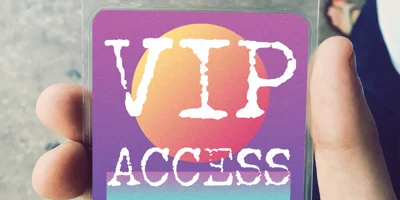
Schmutz Font
Unleash your grunge typography potential with Schmutz Font, a raw and expressive distressed typeface that brings authentic urban edge to your designs. With its handcrafted imperfections and streetwise character, this font captures the spirit of punk flyers, skate decks, and alternative culture.
Why Schmutz Font Rocks
1. Authentic Urban Texture
Genuine hand-inked imperfections
Multiple alternate glyphs for organic variation
Perfect "lived-in" distressed effects
2. Rebel Design Applications
Made for:
Music posters and album art
Skate/surf brand graphics
Craft beer labeling
Protest graphics and zines
Streetwear branding
3. Raw Creative Features
Upper/lowercase with gritty alternates
Custom ligatures for natural flow
Ink bleed and paper texture built-in
Includes punk-inspired dingbats
Professional Implementation
Schmutz Font kills it in:
Music festival branding
Alternative magazine layouts
Craft product packaging
Urban renewal campaigns
Indie game interfaces
Layer with textures for maximum grit
Designer Tip: Use OpenType alternates (Contextual Alternates ON) for authentic hand-drawn variation.
Key Advantages:
Realistic ink bleed (not fake digital effects)
Multiple distress levels per character
Perfect for screen printing simulations
Why It's Different:
Unlike clean digital grunge fonts, Schmutz captures the true unpredictability of hand-pulled prints and xeroxed punk flyers.
Perfect Pairing:
Combine with a stark geometric sans (like DIN) for contrast in rebellious layouts.
Pro Insight:
The font includes subtle paper texture in the glyphs themselves, making it particularly effective when printed on colored backgrounds.
Includes broken/stencil letter variants
Punk rock ornament set
Special "tape over" effect characters
Cultural Cred:
Designed by actual screen printers who lived through the 90s DIY scene, ensuring authentic underground aesthetics.
Expert Technique:
For concert posters, set important words in ALL CAPS with tight tracking, then rotate individual letters slightly for that "just wheatpasted" look.
Technical Note:
Includes OpenType features that automatically vary letterforms for natural, non-repeating texture in longer text blocks.